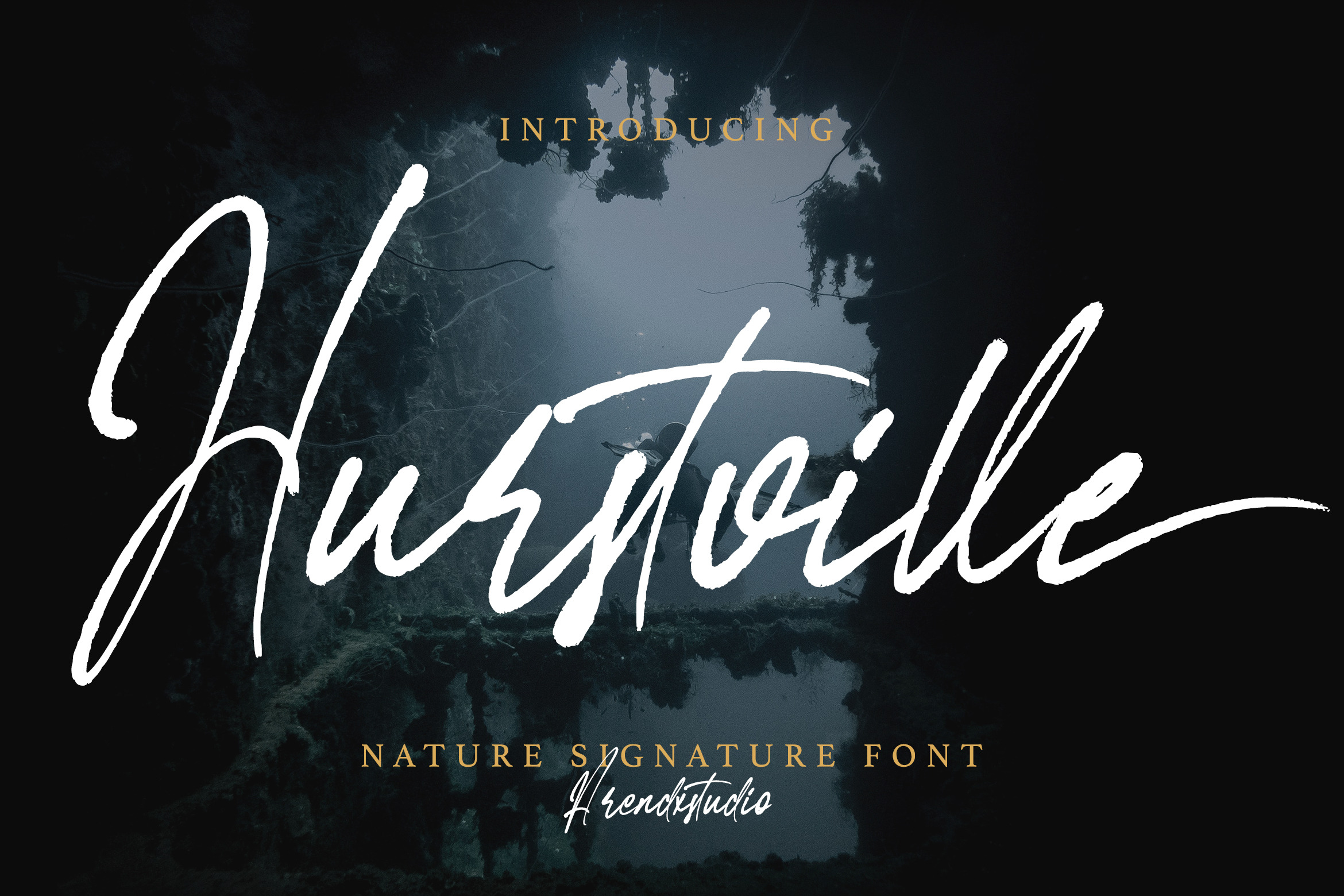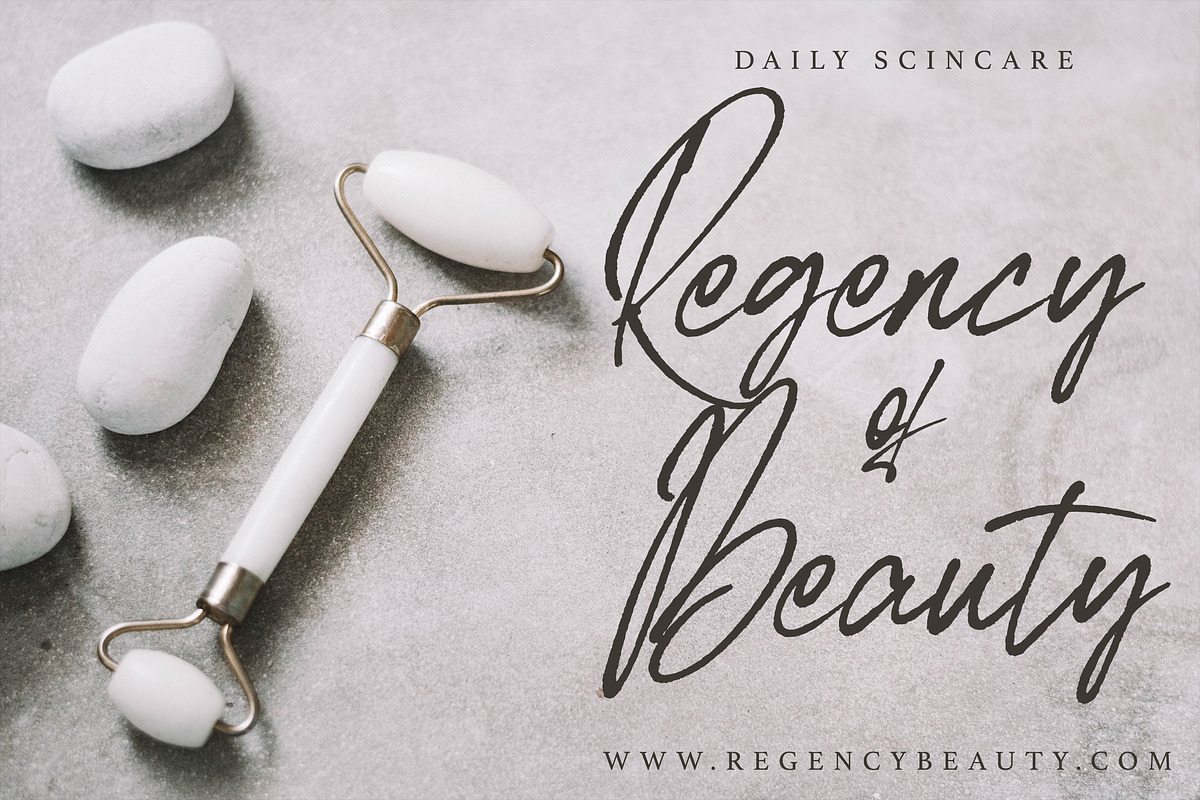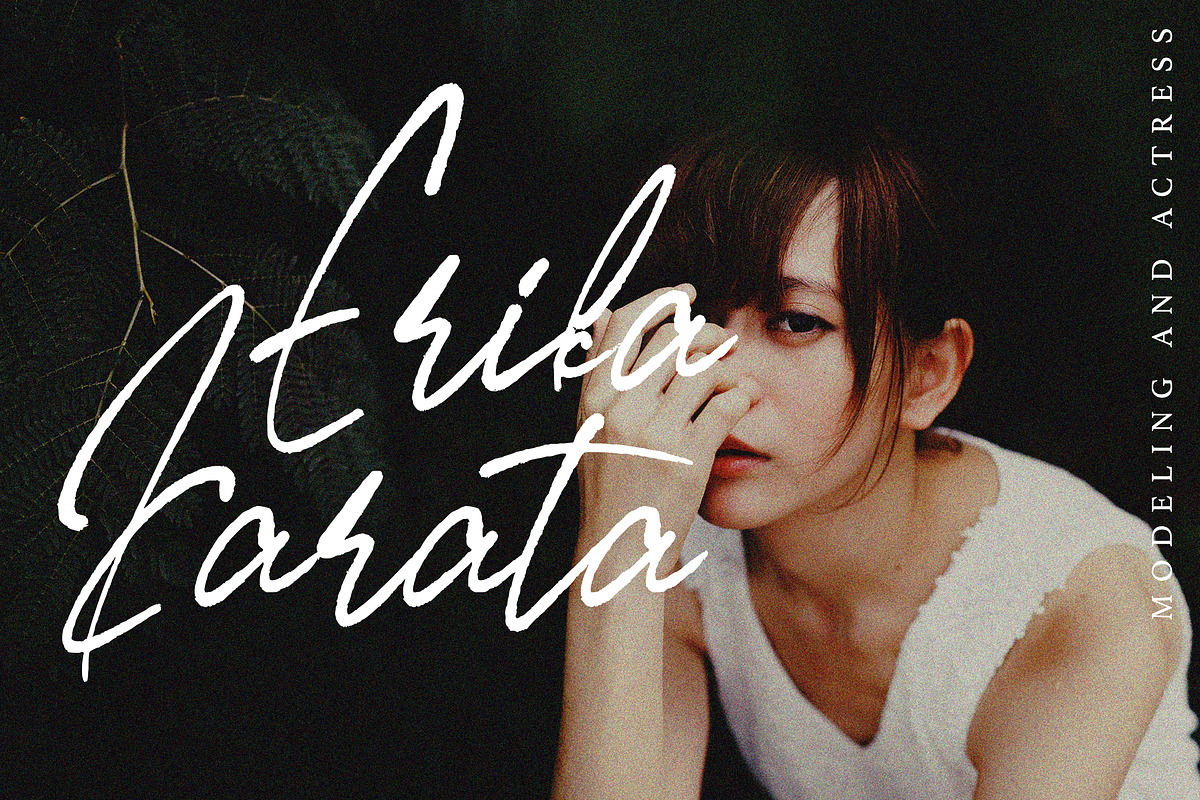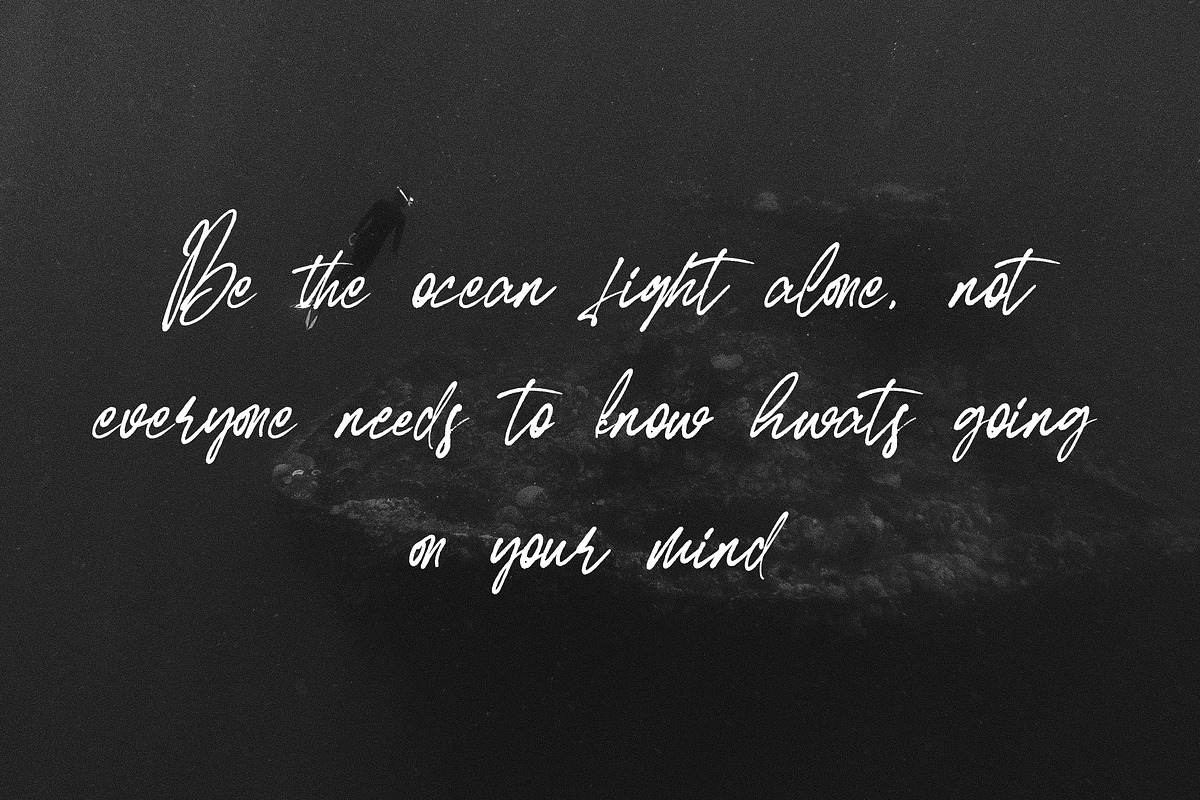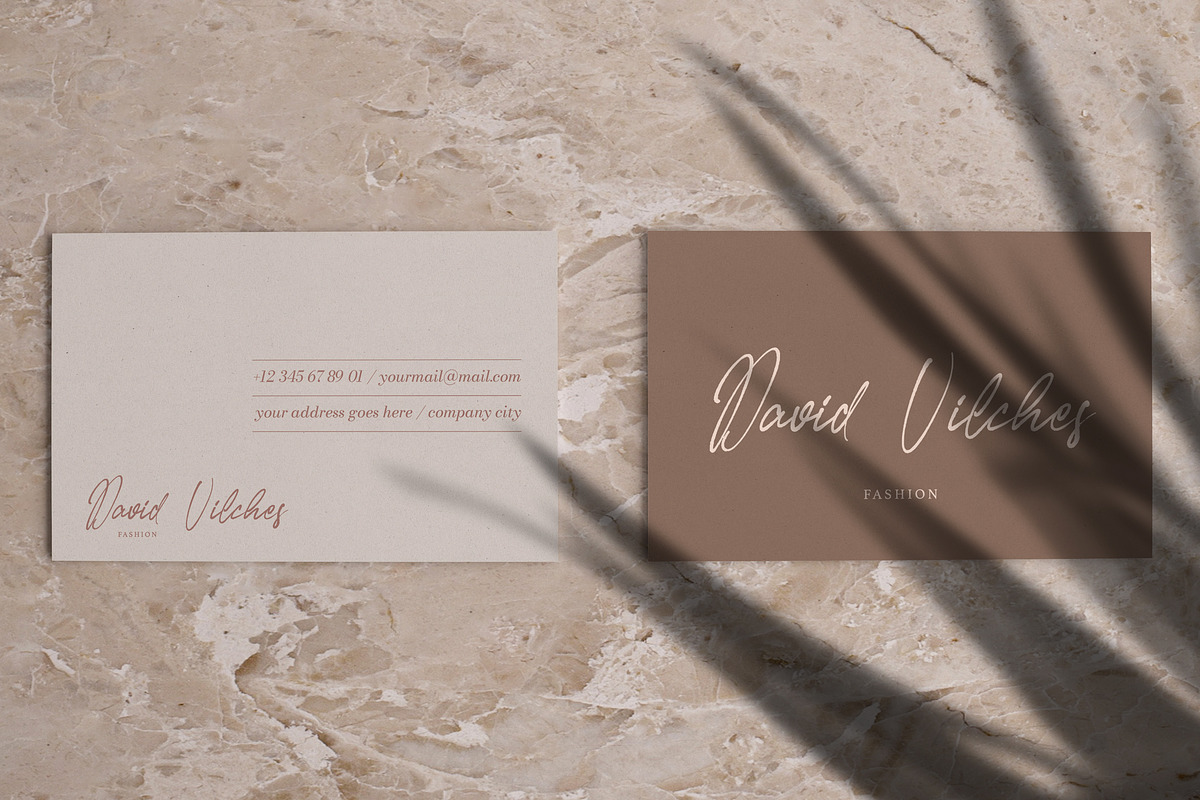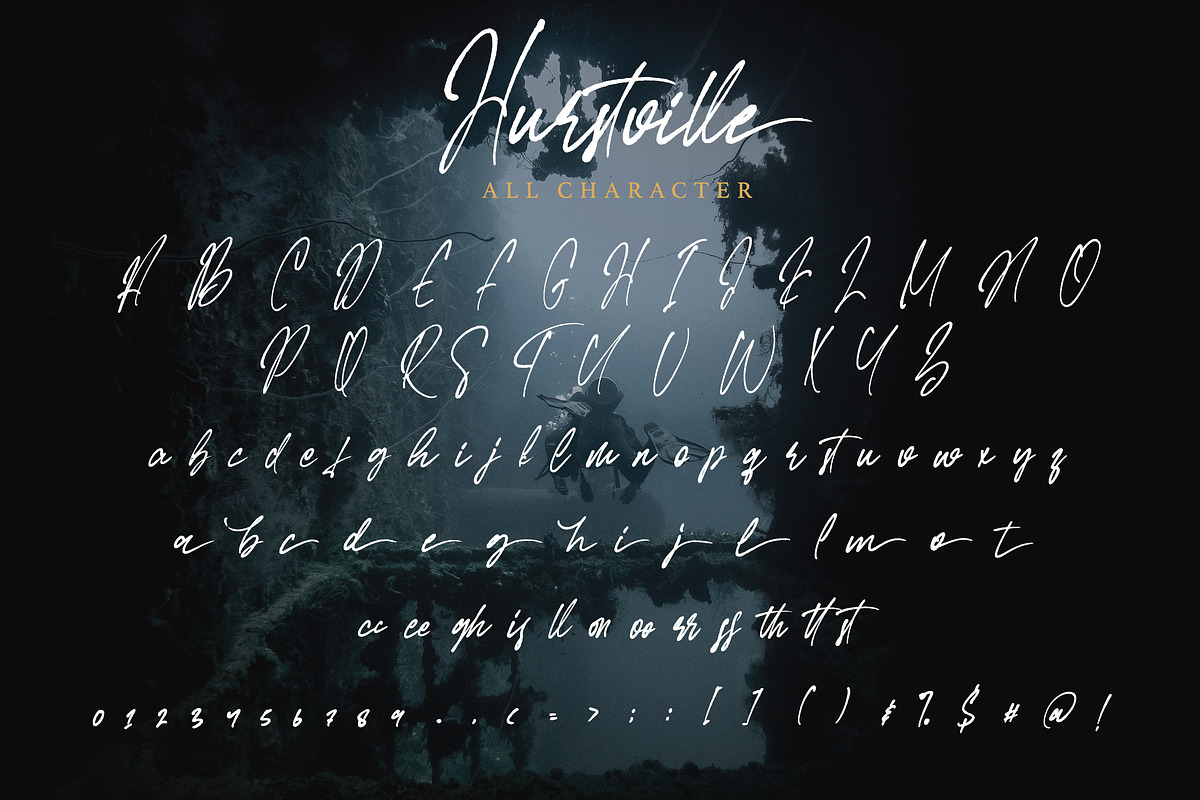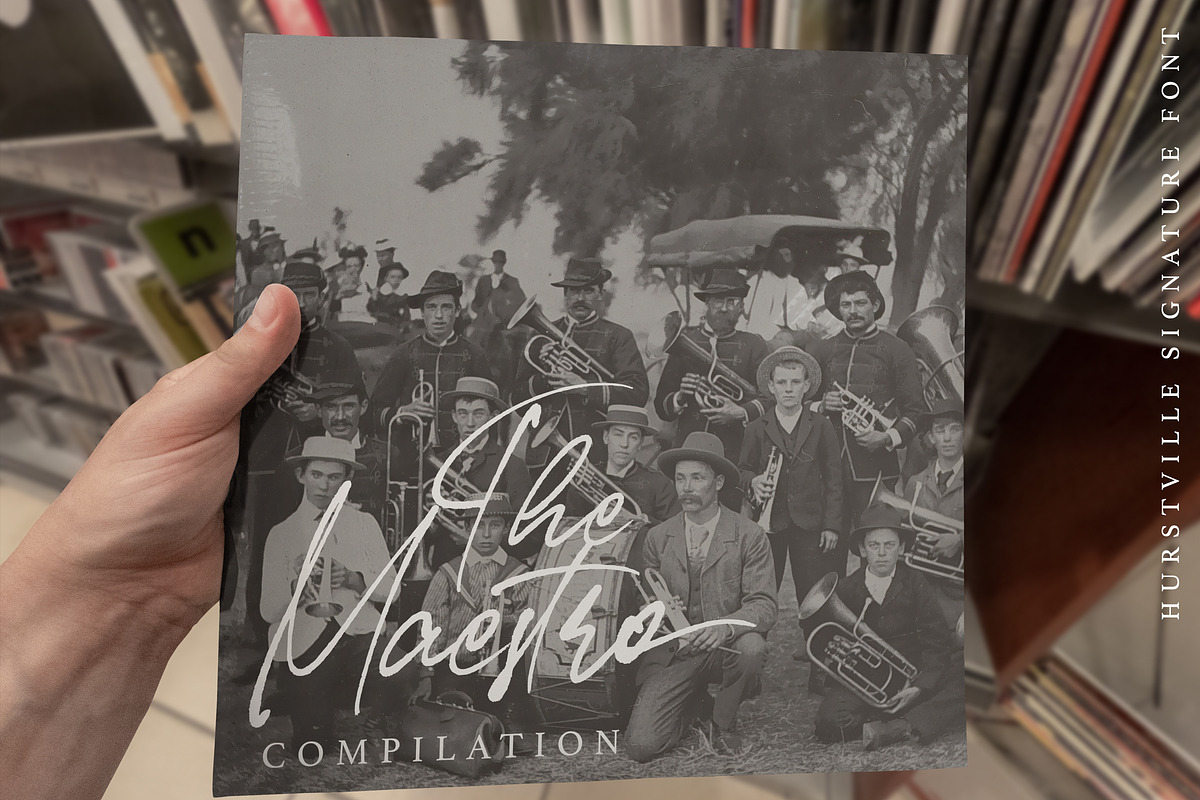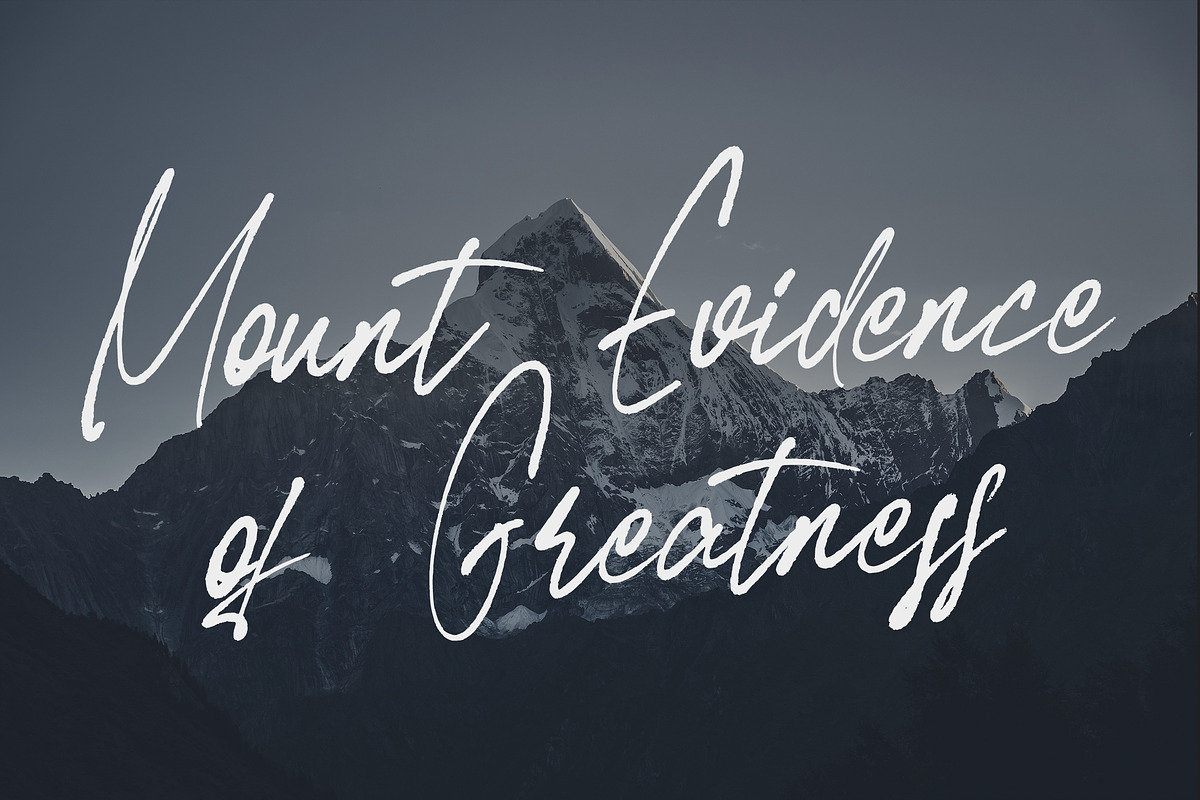
Hurstville - Brush Signature Font
Hurstville - Brush Signature Font with a natural & stylish flow. This collection of scripts is perfect for personal branding. this works well for many applications. Everything from personal branding & wedding invitations to advertising could benefit from this collection of signature fonts
Features : • Character Set A-Z • Numerals & Punctuations (OpenType Standard) • Accents (Multilingual characters) • Ligature • Swash